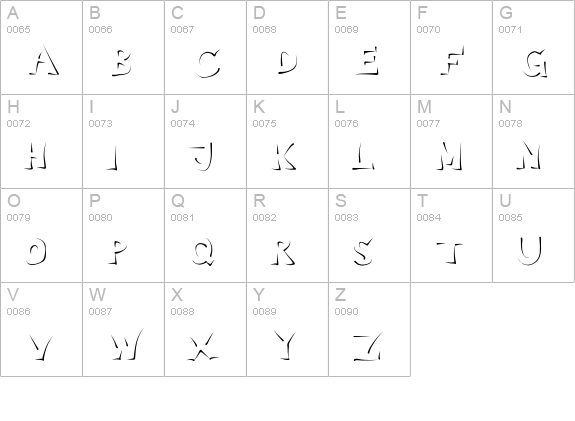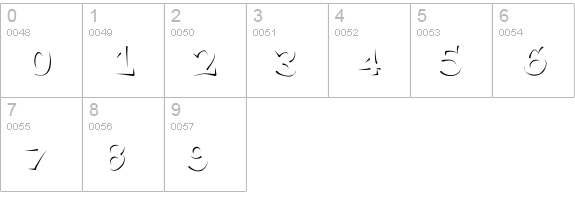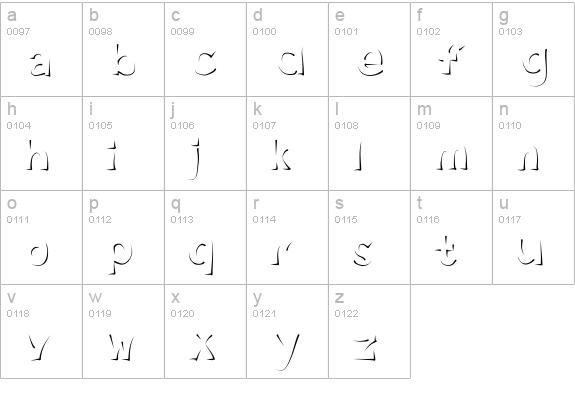
Enlighten font is a beautifully crafted typeface that exudes elegance and sophistication. Its sleek and stylish design makes it perfect for a wide range of creative projects, from branding and advertising to editorial and web design. With its clean lines and balanced proportions, Enlighten font brings a modern touch to any design. But what sets Enlighten font apart is that it is not only visually stunning, but also freely available to download. That's right, you can enjoy the beauty and versatility of this font without any cost. It's a rare find in the world of typography, where high-quality fonts often come with a hefty price tag. Enlighten font can be easily obtained at FontsMarket.com, a reputable online platform for downloading fonts. This means that you can access this remarkable font with just a few clicks, ensuring that your creative endeavors are not hindered by budget constraints. Whether you are a professional graphic designer or a hobbyist looking to enhance your projects, Enlighten font is a valuable asset. Its versatility allows it to adapt to various design styles and purposes, making it suitable for both print and digital media. From logos and headlines to body text and captions, Enlighten font can effortlessly elevate the visual appeal of any project. So, why settle for mediocre fonts when you can have Enlighten font for free? Download it today from FontsMarket.com and unlock a world of endless possibilities for your design projects. Let Enlighten font be the catalyst that takes your creativity to new heights.